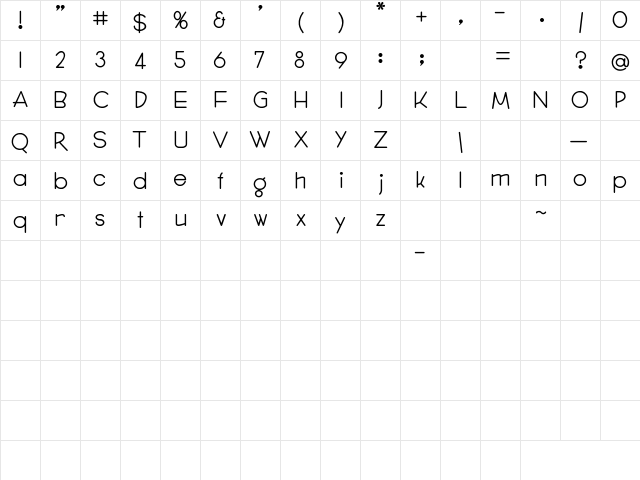
Gordon Heights Regular
Design Context for Gordon Heights Typeface
Gordon Heights is a composed and adaptable typeface that performs quietly and consistently across a wide range of design contexts.